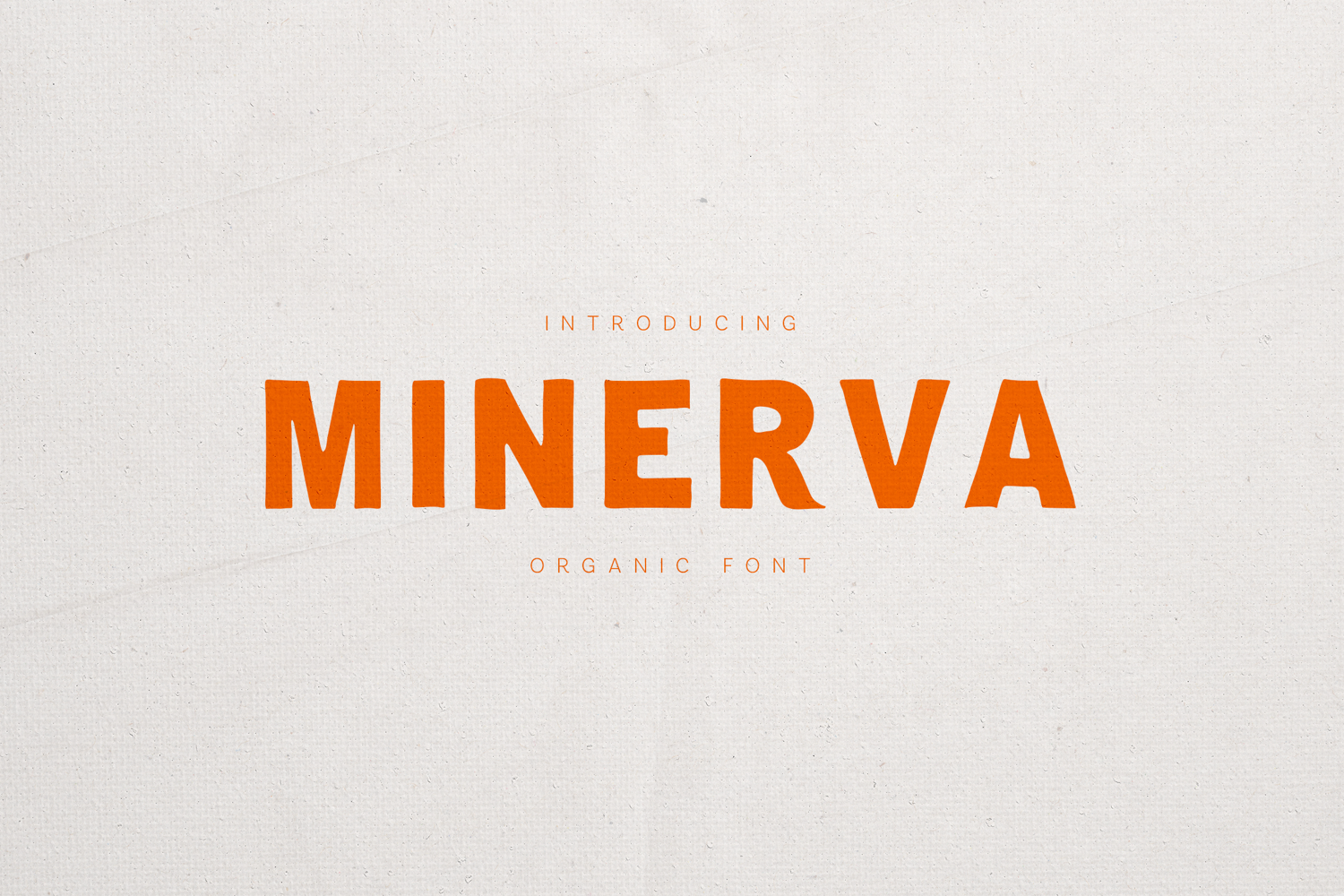
Minerva Bold Organic Sans Serif Font
Minerva is a bold organic sans serif font inspired by natural shapes, handmade textures, and human expression. With its rounded forms, subtle irregularities, and confident weight, Minerva delivers a warm, approachable personality while remaining strong and highly legible.
This font is ideal for branding, packaging, posters, logos, editorial headlines, lifestyle products, food & beverage design, sustainable brands, and marketing projects. Its organic construction gives designs an authentic, tactile feel that stands out beautifully in both print and digital applications.
If you’re looking for a bold font that feels natural, friendly, and expressive, Minerva brings organic character and modern strength to your typography.